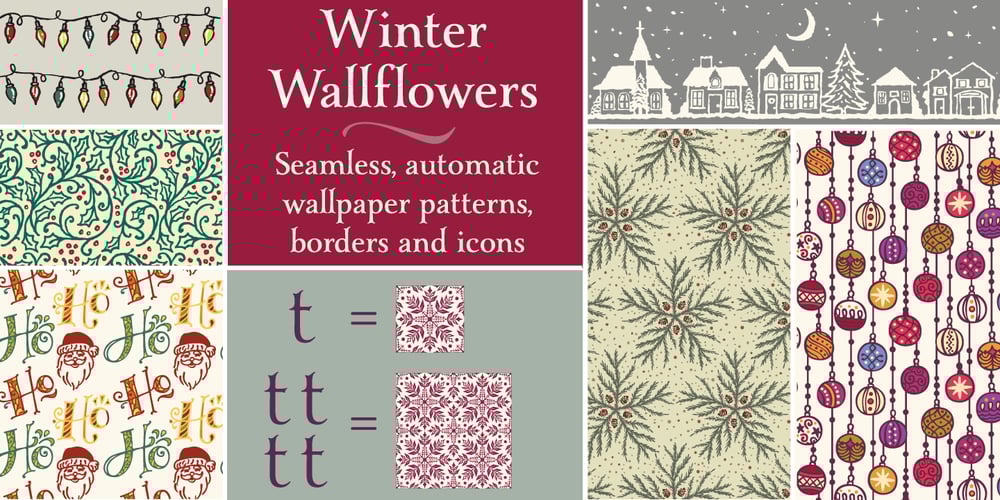
Winter Wallflowers Font Family was designed by Laura Worthington and published by Laura Worthington Design. Winter Wallflowers contains 1 styles and family package options. Create borders, wallpaper, or repeating patterns using 25 unique hand drawn wallpaper tiles and accompanying icons. Winter Wallflowers are very easy to use for borders or wallpaper: simply type the same letter consecutively (i.e., aaa) and the pattern will emerge. See what’s included! http://bit.ly/2bO1mIE